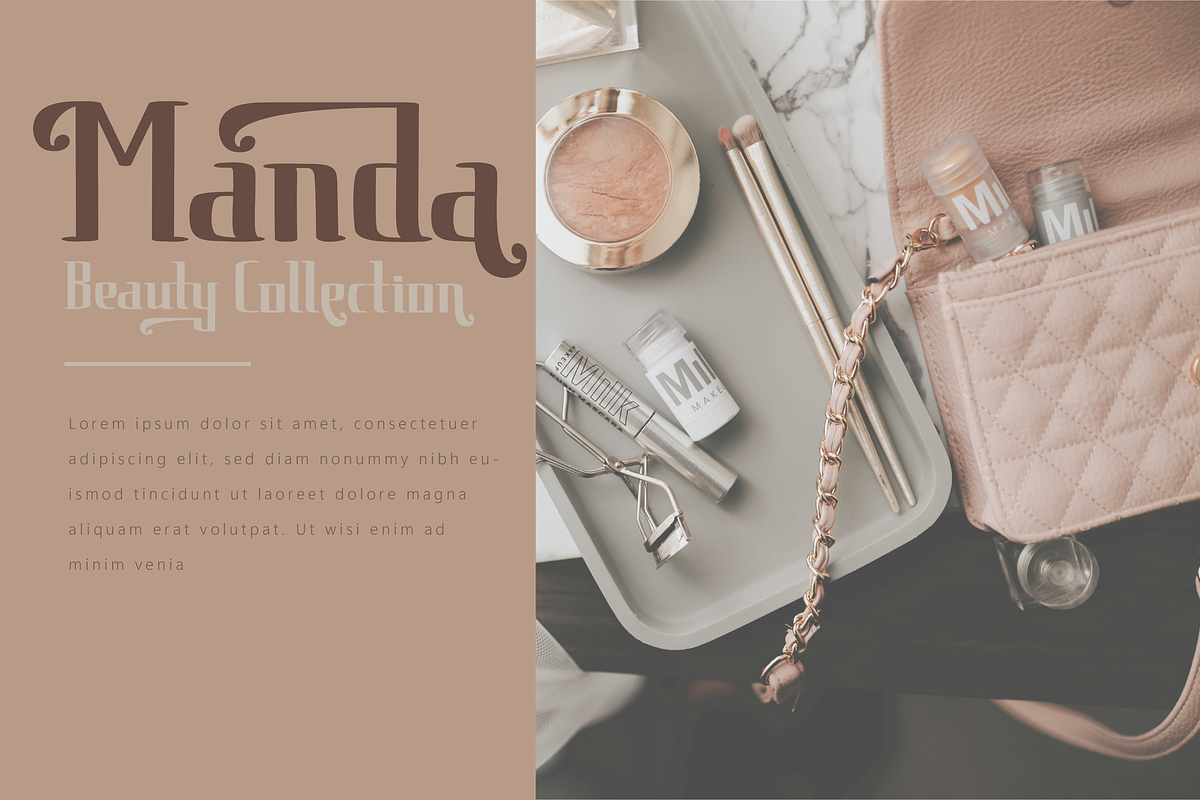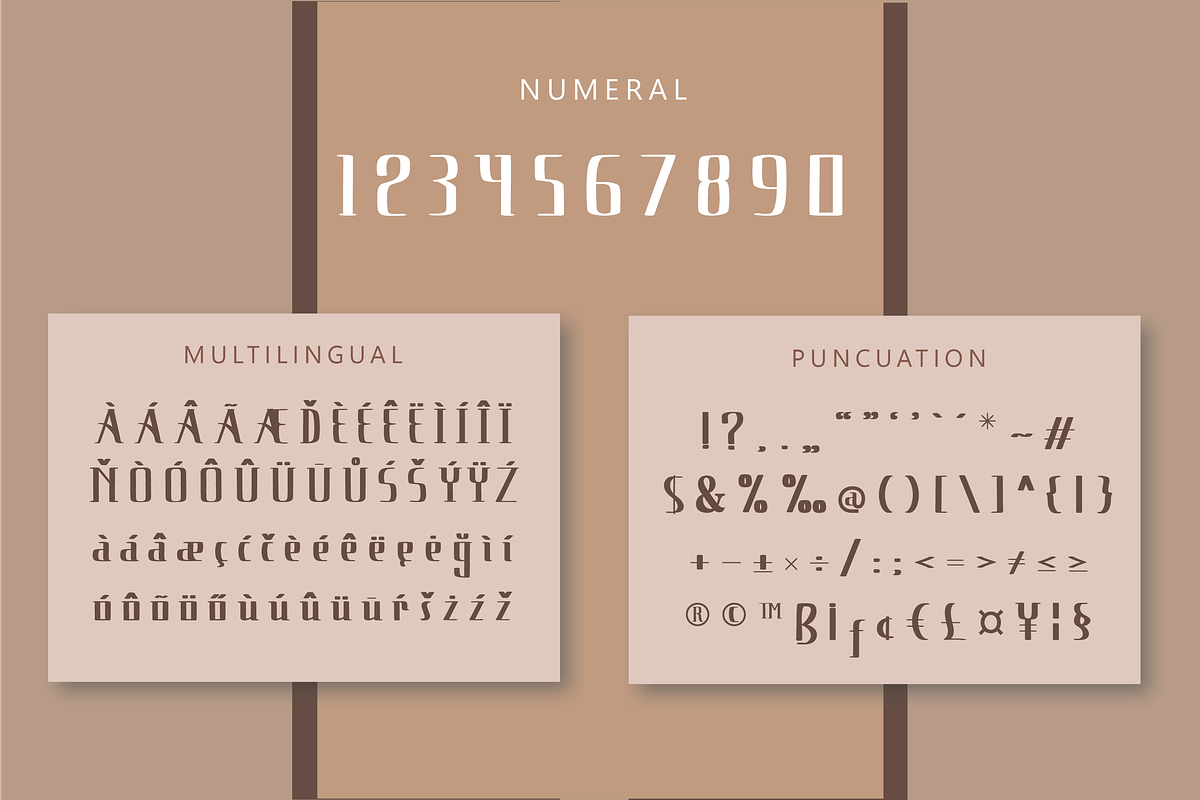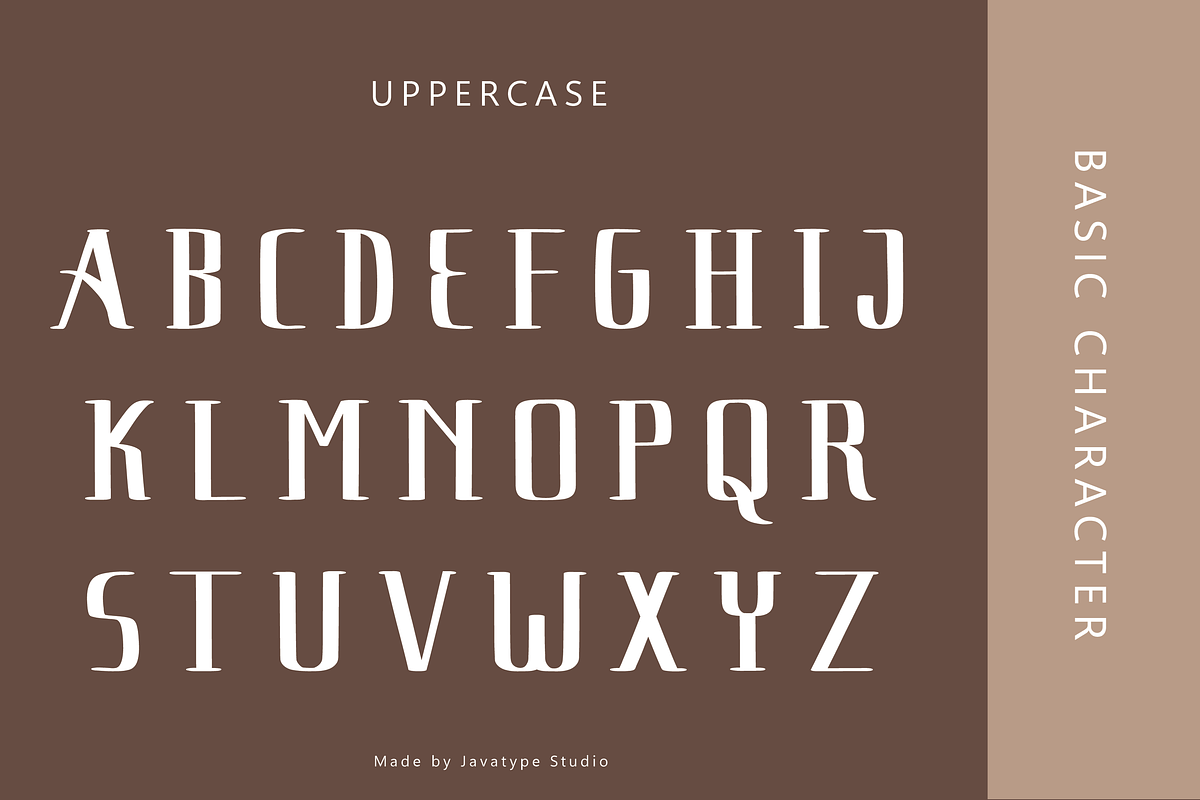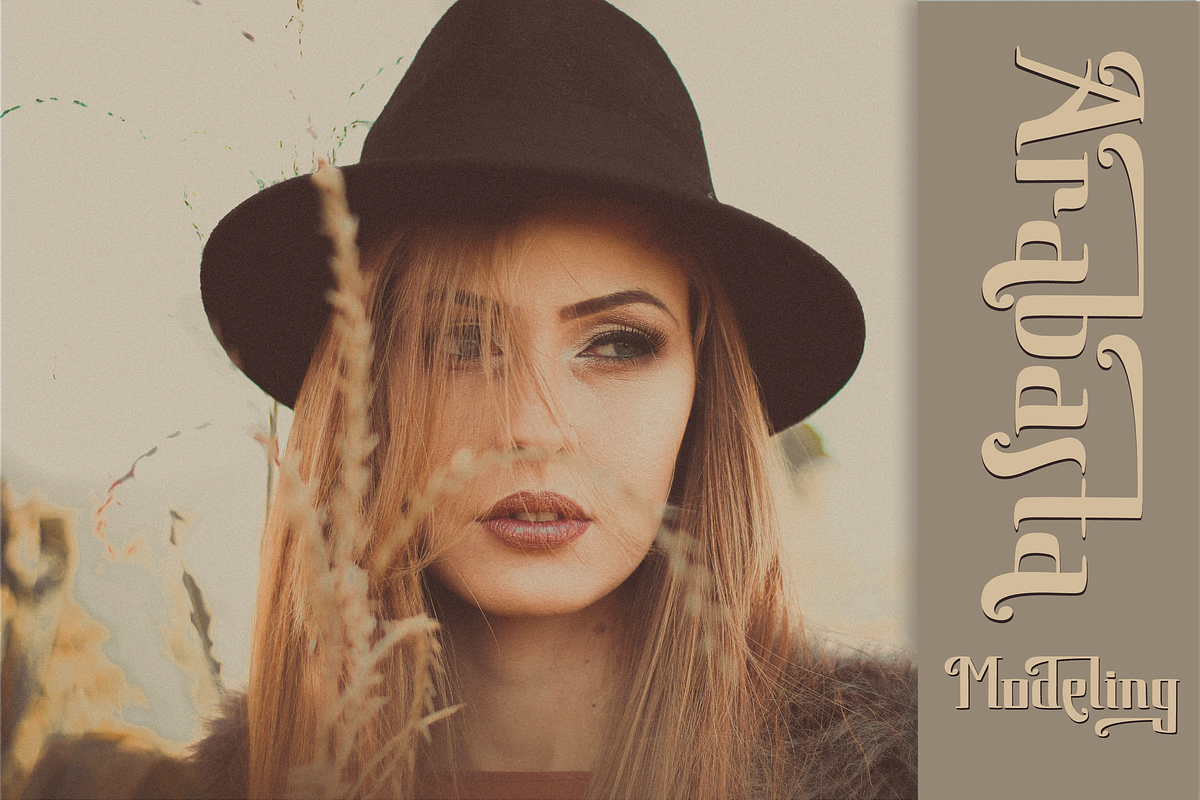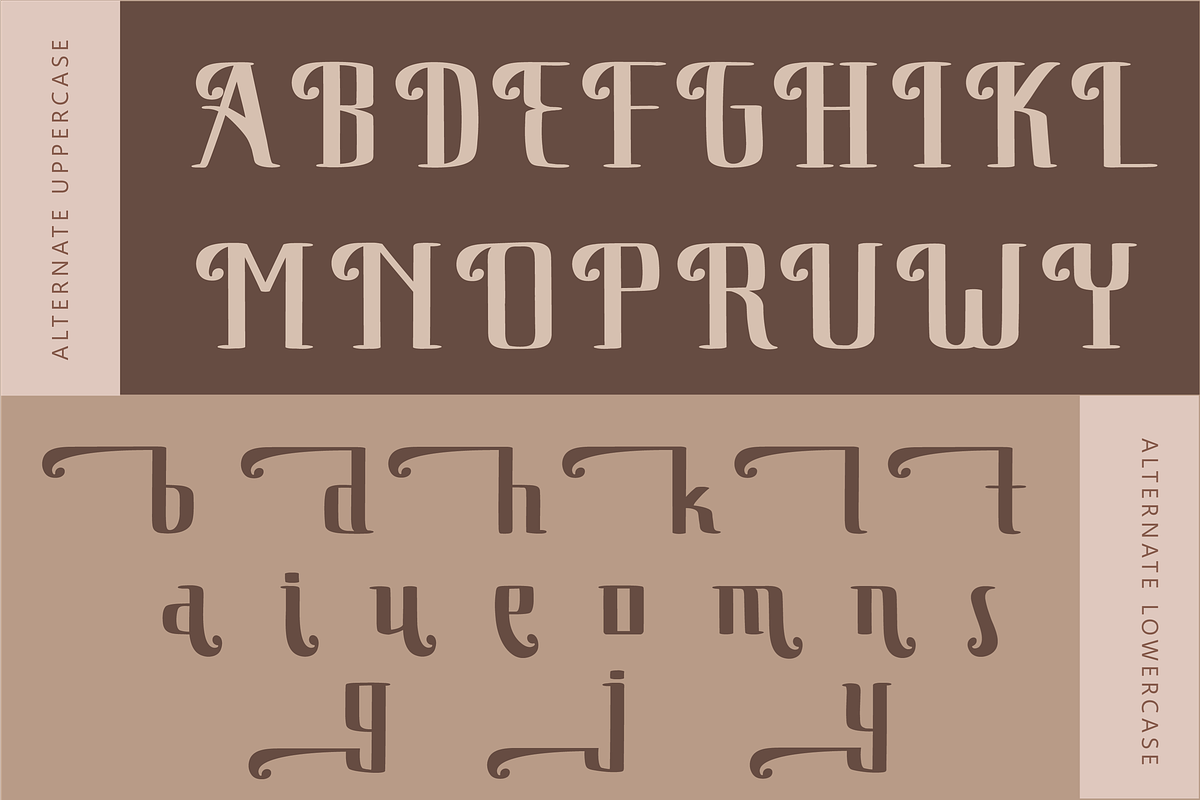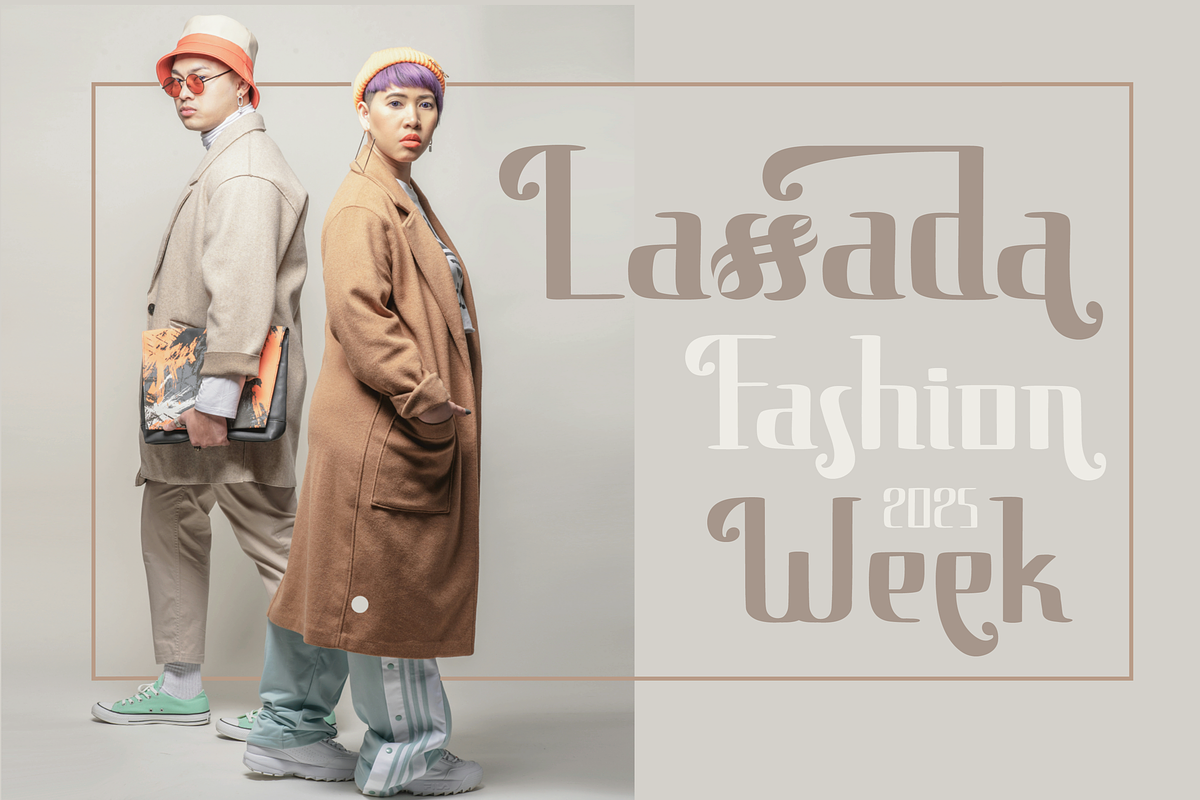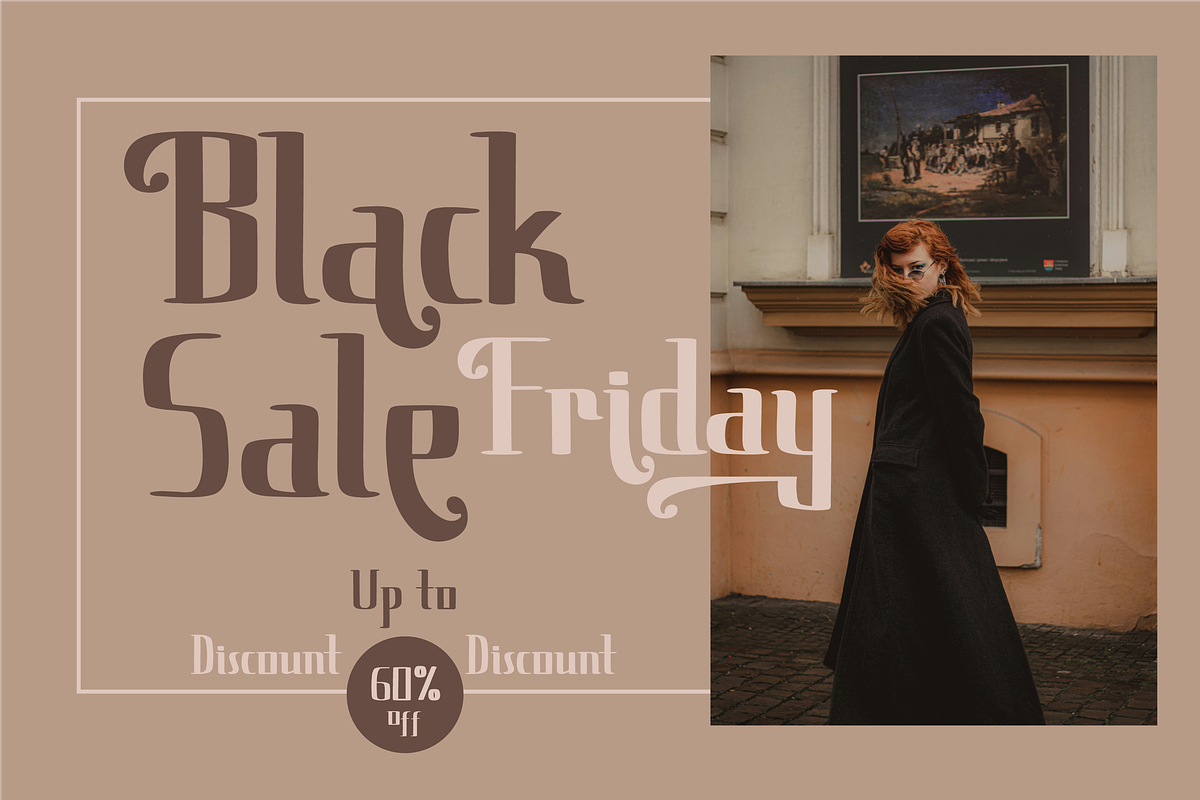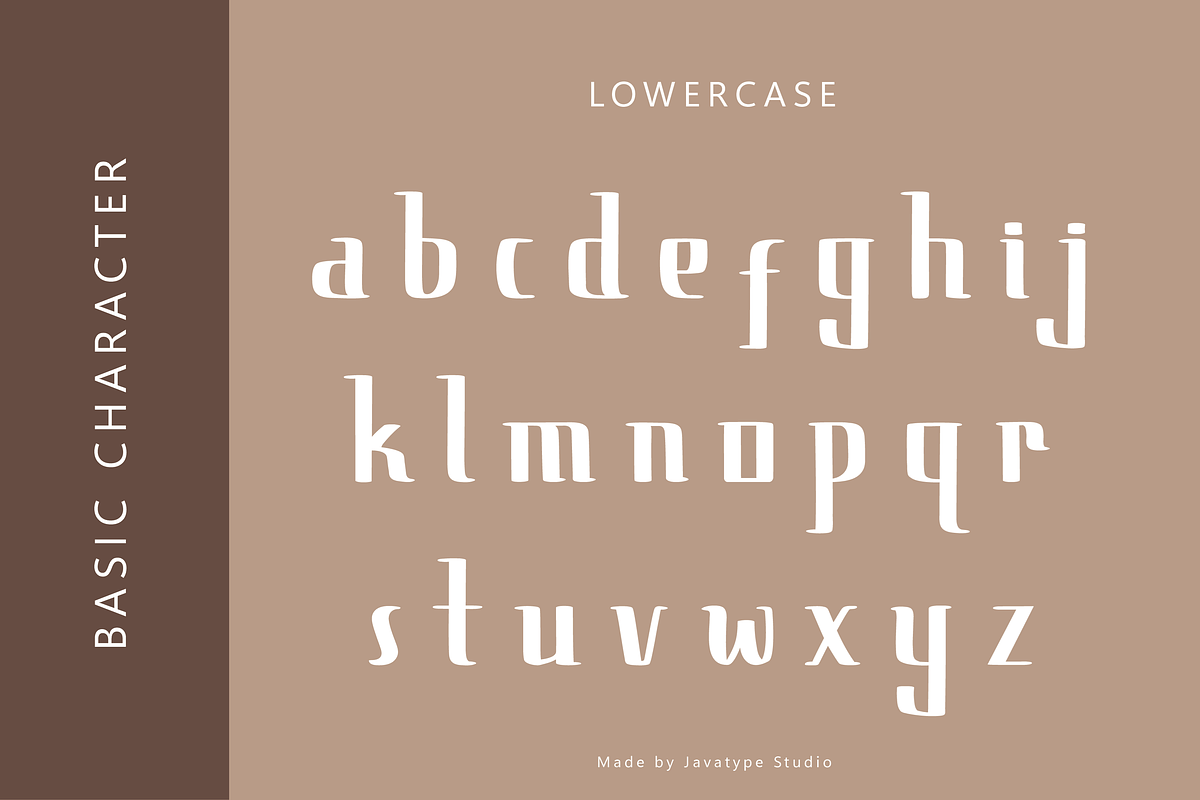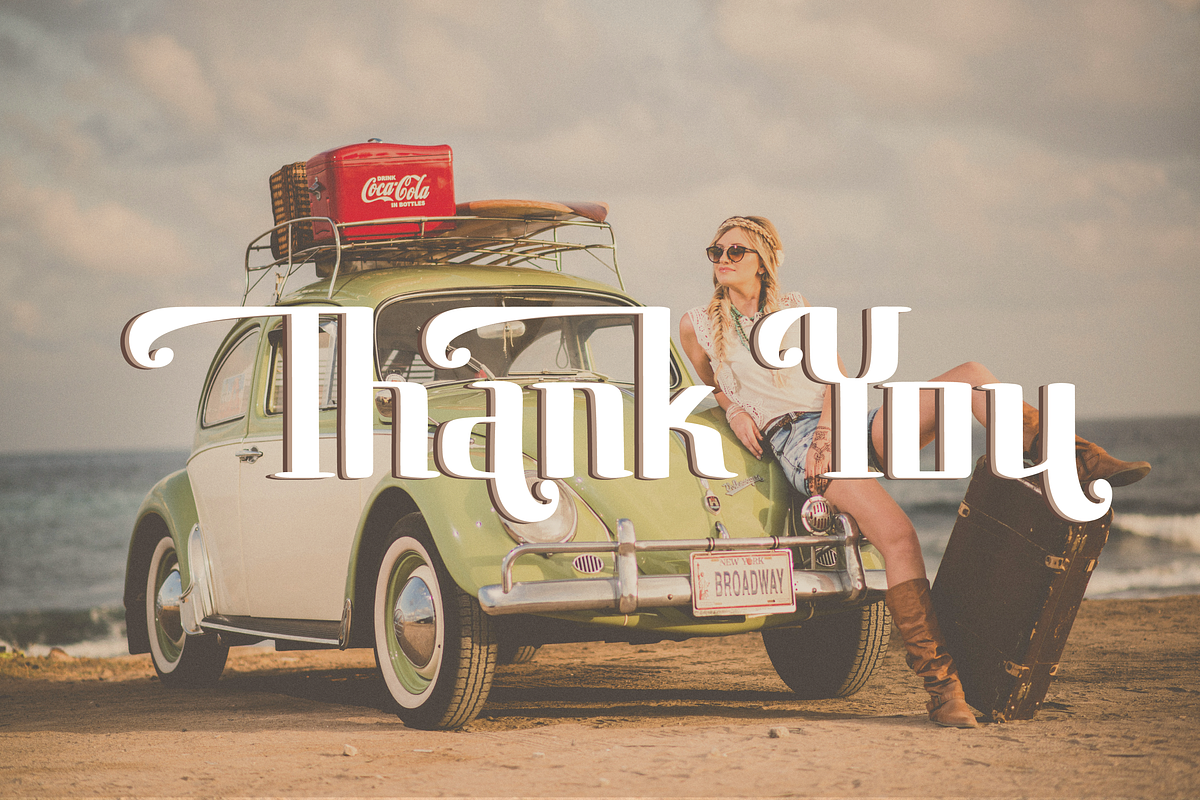
Russtan a retro serif font
Immerse yourself in the delightful charm of Rusttan, a font with an ageless serif style magically intertwined with a contemporary edge. The ripened sophistication of the vintage silhouette marries effortlessly with the crisp modern flair, creating an elegant typographic experience. Find the perfect expression for a diverse array of needs, whether it's turning the fabric of your clothing line into a canvas of chic statements or lending a signature style to your everyday essentials. With Rusttan, every word becomes a testament to timeless elegance and modern sophistication.